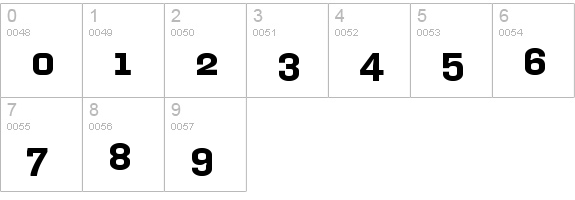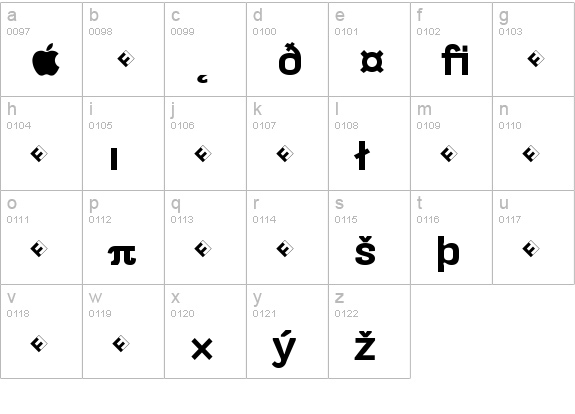
HydraText-BlackExpert is a stunning and versatile font that exudes boldness and sophistication. With its sleek and modern design, this font is perfect for making a statement in any project. Whether you are designing a poster, logo, or website, HydraText-BlackExpert will surely catch the eye of your audience. The best part is that HydraText-BlackExpert is available for free download at FontsMarket.com. This means you can add this exceptional font to your collection without any cost. Don't miss out on the opportunity to enhance your designs with the elegance and impact of HydraText-BlackExpert. Download it today and take your projects to the next level!